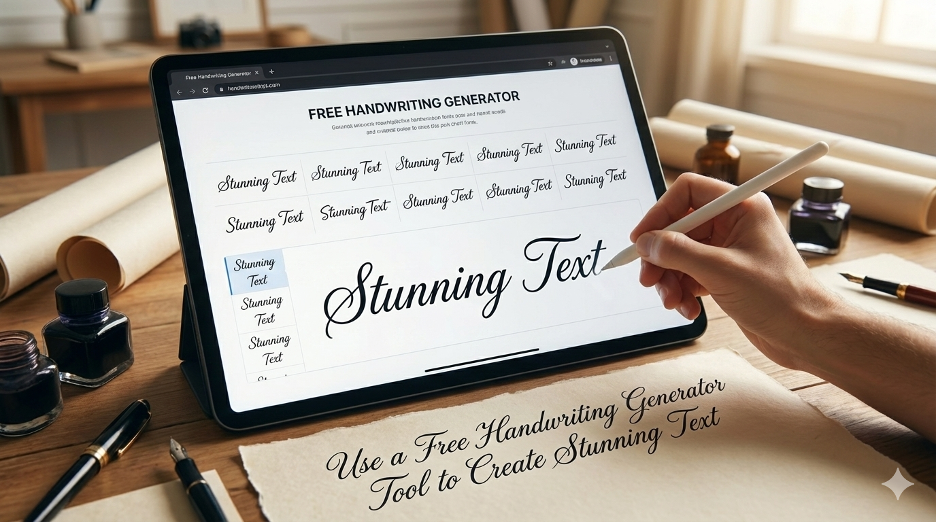
Use a Free Handwriting Generator Tool to Create Excellent Text
In a digital era where a visual element is implemented as the primary focus, a font can either break or make an impression on your content. If you are either a graphic designer in a hurry and need to meet deadlines, a content creator developing your brand, or a small entrepreneur designing marketing content, then you need to find the correct typography solution. Playing in the field of AI-driven font generation, it is not a secret anymore that making a beautiful, personalized font used by a big company is simply done by professional typographers with large checks.
The demand for fancy fonts and unique lettering styles has skyrocketed as brands seek to differentiate themselves in crowded markets. Classic font development is a costly process of thousands of dollars and weeks and months to complete. Luckily, there is a quicker, easier solution provided by modern technology that gives pro results at a non-pro cost.
Why Your Brand Needs Unique Typography
Typography goes beyond letters on the screen; it is an amazing way to communicate personality, development of recognition, and influence of perception to the audiences of your message.
These are the arguments to buy custom fonts:
- Brand Identity: Designed typography helps to make a difference among the competitors that use regular system fonts. A font more appropriate to your brand also becomes associated with your brand, and your content will be easily identifiable.
- Emotional Connection: The correct script or style of calligraphy produces certain emotions. A refined typeface implies such a style as sophistication, whereas fun and playfulness are conveyed by flirtatious writing.
- Professionalism: Coordinating special fonts: It is the use of fonts that are unique and of high quality that tries to suggest that you are keen on details and on your brand.
- Flexibility: Custom fonts are compatible with anything, such as Instagram images and TikTok videos, as well as business cards and wedding invitations.
Knowledge on Modern Font Generation Technology
The old model of font production is manual labor-intensive; letterforms are sketched out, the designs are digitized, kerning is applied, and a thousand and one variants are tried. It is an expense that requires expertise and time.
The AI-driven font generator is different and transforms this task; the program, through machine learning, can generate beautiful handwriting, fonts of calligraphy, and decorative lettering within minutes. These applications scan thousands of fonts in order to learn the rules of good typography and use the knowledge to create unique designs according to your requirements.
The technology performs excellently in creating different styles of writing:
- Written in cursive, improved lettering that is flowing and connected.
- Sophisticated handwriting is ideal for use in formal events.
- Natural and hand-painted brush script.
- Dramatic vintage gothic lettering.
- Contemporary calligraphy, Scbystrian technique with a modernistic touch.
Beneficiaries of AI Font Generation?
Graphic and UI Designers
Designers have to work on several projects that have short deadlines, relying on one another constantly. A free handwriting generator tool accelerates the creative process, allowing rapid prototyping of different typographic directions. Designers do not have to spend hours on hand-developing the letterforms: as soon as they have a bunch of choices, they can enhance them to their liking. Such high productivity saves time in strategic thinking and spending less time engaging in repetitive technical labor.
Brand Marketing Teams
The advertising talents realize that the recognition and the loyalty to the brand are motivated by the regularity of the visual identity. Custom typography is capable of enhancing the brand positioning by establishing memorable touchpoints through all channels. Creating concepts of logo designs, social media fonts to use in campaigns, or packaging materials, teams should have the ability to customize the related materials flexibly while considering both brand regulations and budget limitations.
Creators and Influencers of Content
It is all about creating a difference in the attention economy. Bloggers, YouTubers, and social media influencers should have the ability to use aesthetic writing styles that would attract attention and represent their personal brand. Unique typography makes content look polished and professional, whether it is Instagram fonts in feeds that pop or TikTok fonts in video thumbnails that make them stand out. Customized fonts will be that human touch that will appeal to the audience.
Small and Medium Businesses
Companies with a tight budget can hardly afford to hire a typographer or buy high-quality designer fonts. Nevertheless, they require expertly lettered marketing collateral, signage, business cards, and online representation. Affordable font solutions make the playing field even across the board so that smaller brands have access to the same quality tools that the big competitors have.